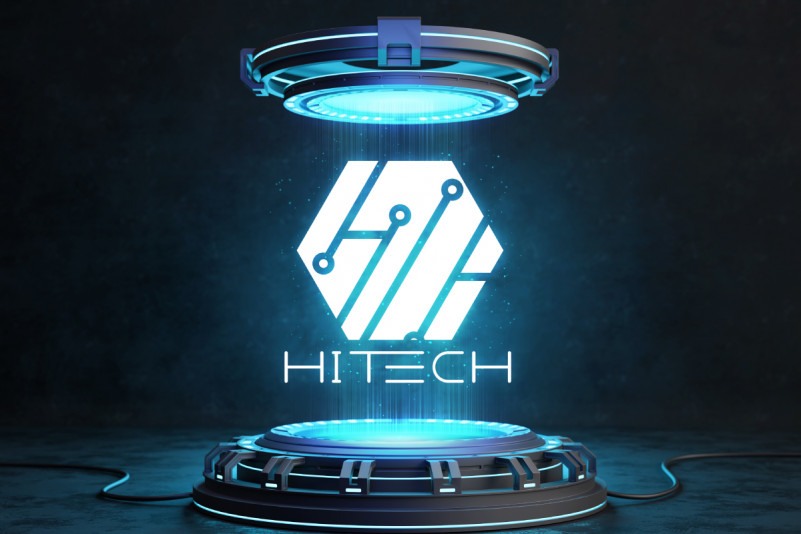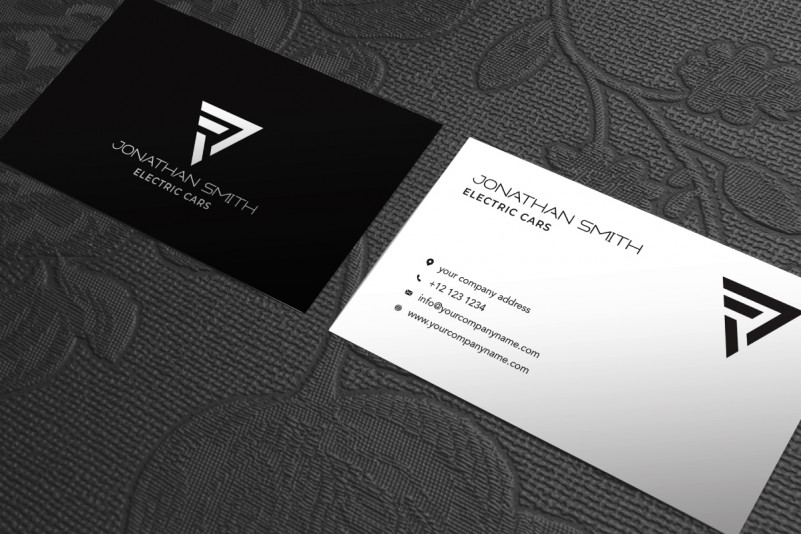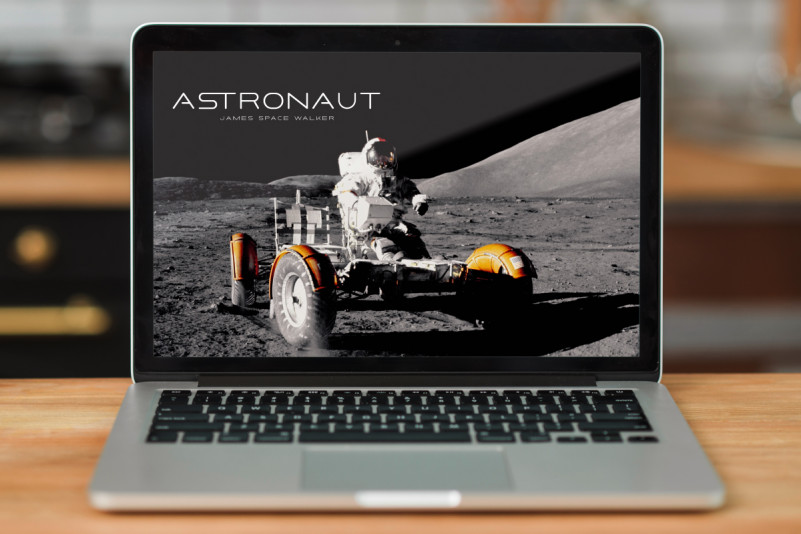
Damention Font
Damention Sans Serif Font
This is a modern minimal Sans Serif font family, inspired from high tech company and futuristic industries, designed by RaisProject. The font is great for any your projects including :brandings, advertising, magazine, signage, invitation, stationery, social media posts, label, or and any projects that need unique minimal style. The industries for this font is Finance, fintech, Startup, Automotive, Apps, Cosmetic, Beauty, Technology, Game, Magazine, Music, Sport etc